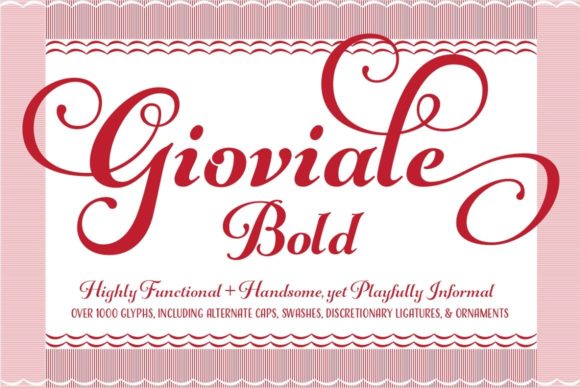
Gioviale Family Font
db-ku.com - Script & Handwritten -- Graphic designers with a lust for lettering are constantly seeking scripts balanced neatly on the sweet spot suited for exuberant editorial work and messages of cheer. Neither frivolous nor strict. My typeface, Gioviale, satisfies that need.